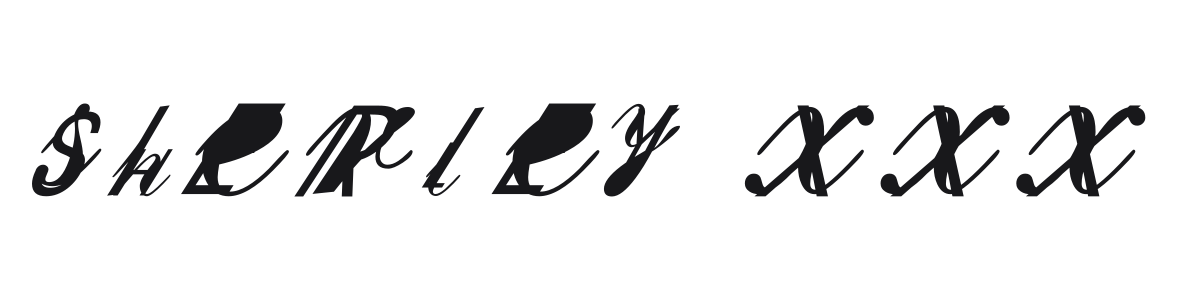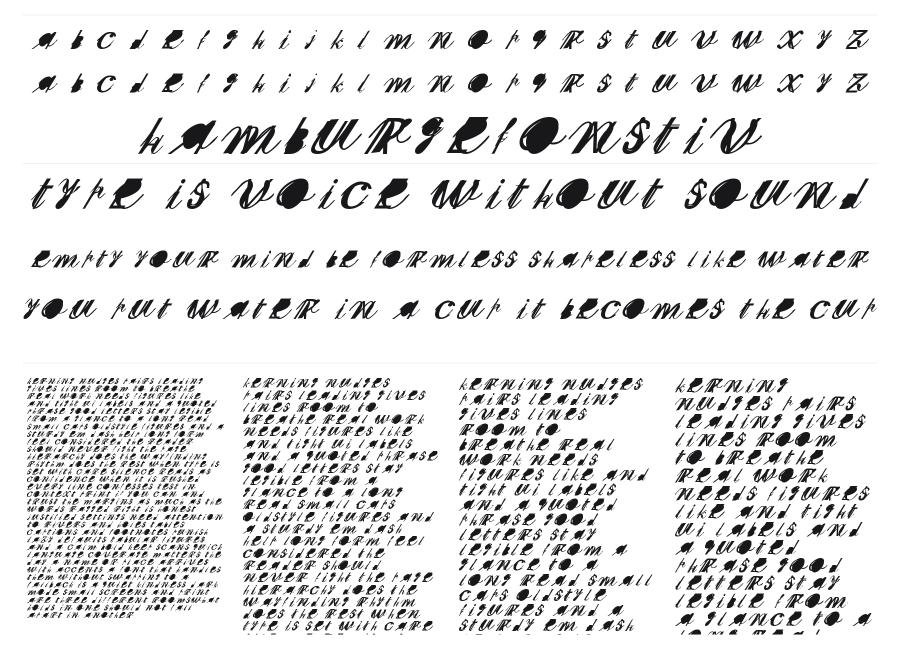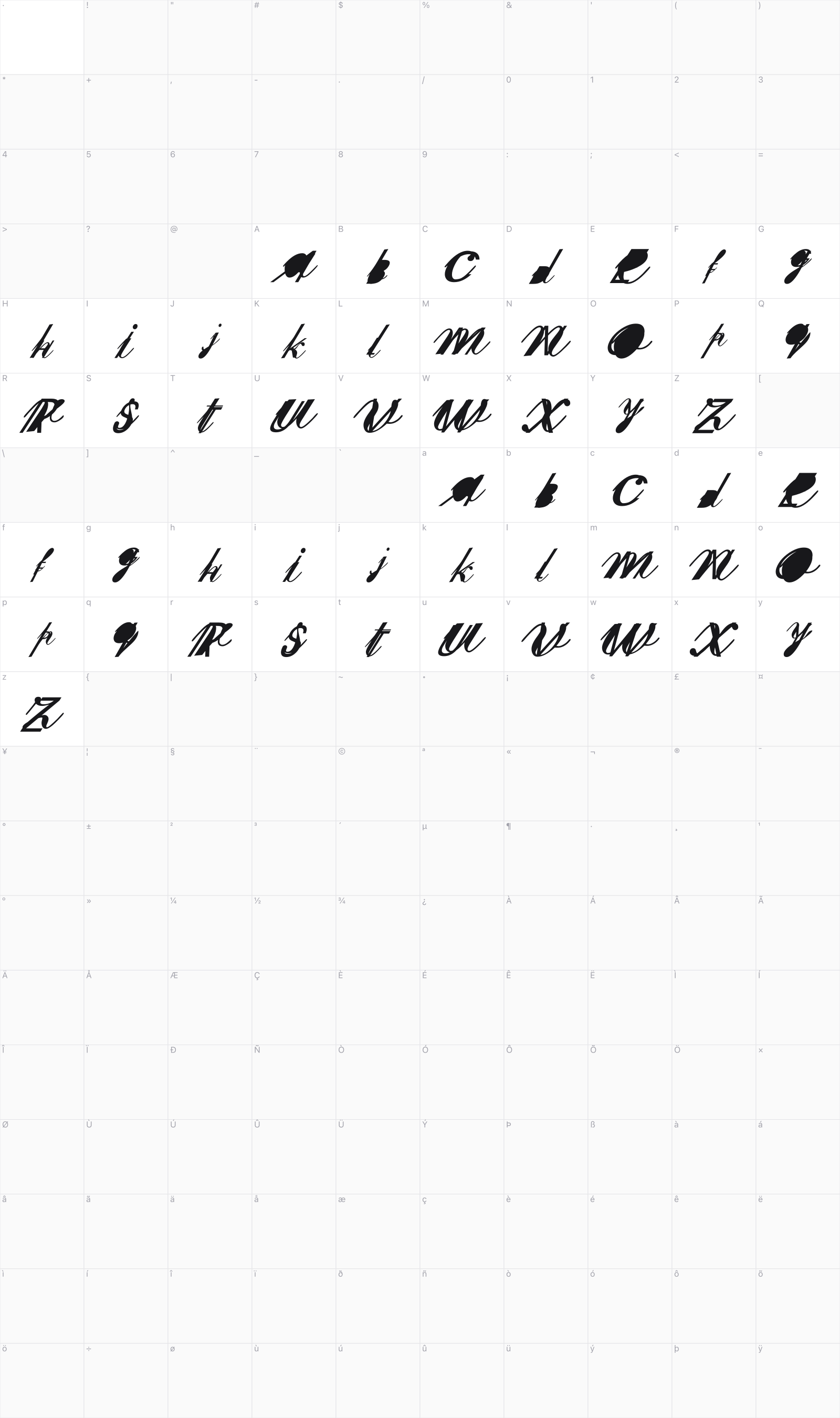
Sherley XXX
Sherley XXX is a raw, gestural brush script with extreme stroke contrast and an untamed, expressive energy. Characters vary wildly in weight and proportion, from heavy ink-pooled forms to delicate hairline strokes, all leaning at a dramatic italic angle. It carries the immediacy of hand-lettering done at speed.